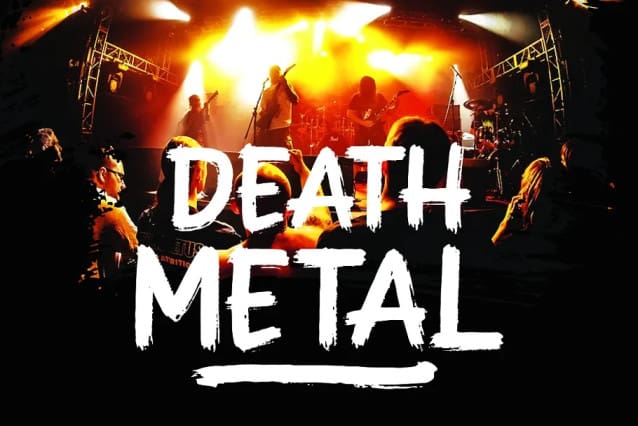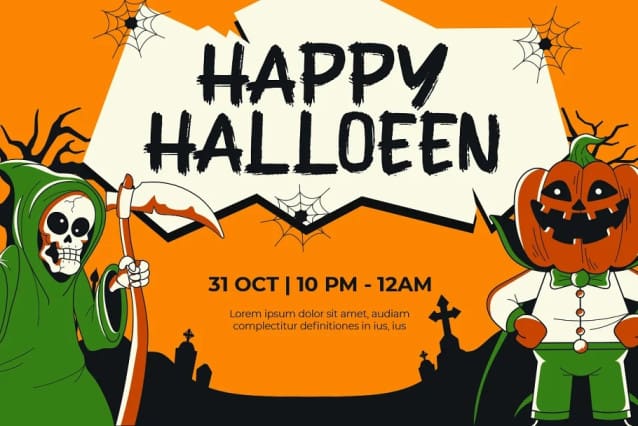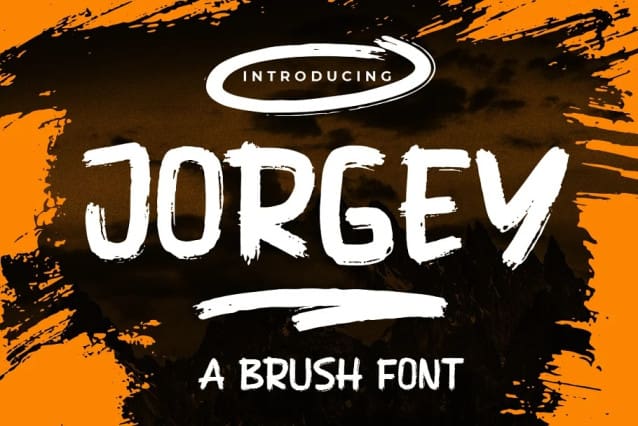
Jorgey Brush Font
Jorgey Brush Font, casual brush script has a nice texture and flow. Jorgey has many alternatives to make it look like real handwriting; four sets of lowercase and two sets of uppercase. suitable for design projects; logos, branding, posters, quotes, beautiful wedding invitations, beautiful stationery art, eye-catching social media posts, and cute greeting cards and other designs. It is unique, very natural and attractive